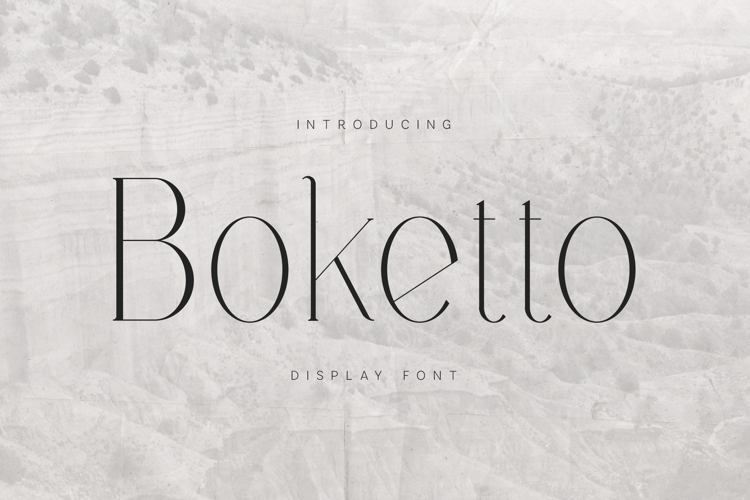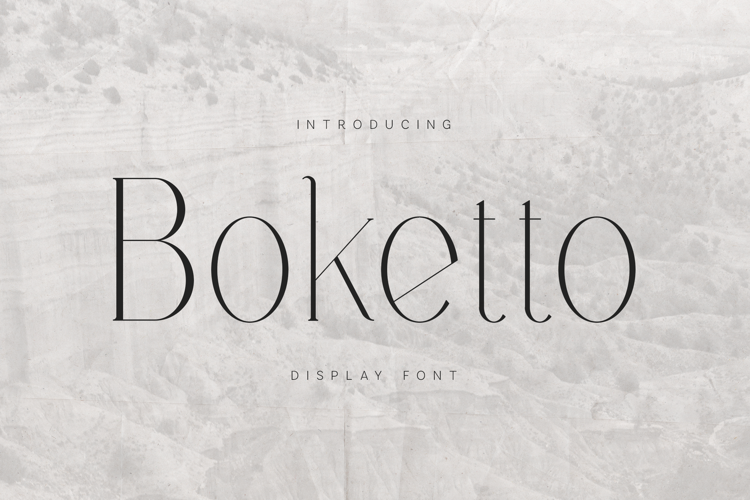
Boketto Elegant Modern Serif Display Font
Boketto is an elegant modern serif display font designed with delicate high-contrast strokes and refined letterforms. The typeface blends contemporary minimalism with classic editorial aesthetics, creating a sophisticated and graceful typographic style.
The thin strokes and carefully balanced curves give the letters a light and airy appearance while maintaining strong visual character. Its refined proportions make the font perfect for elegant compositions where typography needs to feel stylish, calm, and premium.
Boketto works beautifully for editorial layouts, magazine headlines, branding projects, logo design, luxury packaging, wedding stationery, modern typography compositions, posters, creative layouts, and sophisticated visual identities.
The font includes uppercase letters, lowercase letters, numbers, punctuation, symbols, and extensive multilingual support, allowing designers to create professional typography across many languages and design projects.
With its refined modern structure and elegant serif styling, Boketto offers a distinctive display typeface for clean, sophisticated typography and modern editorial design.